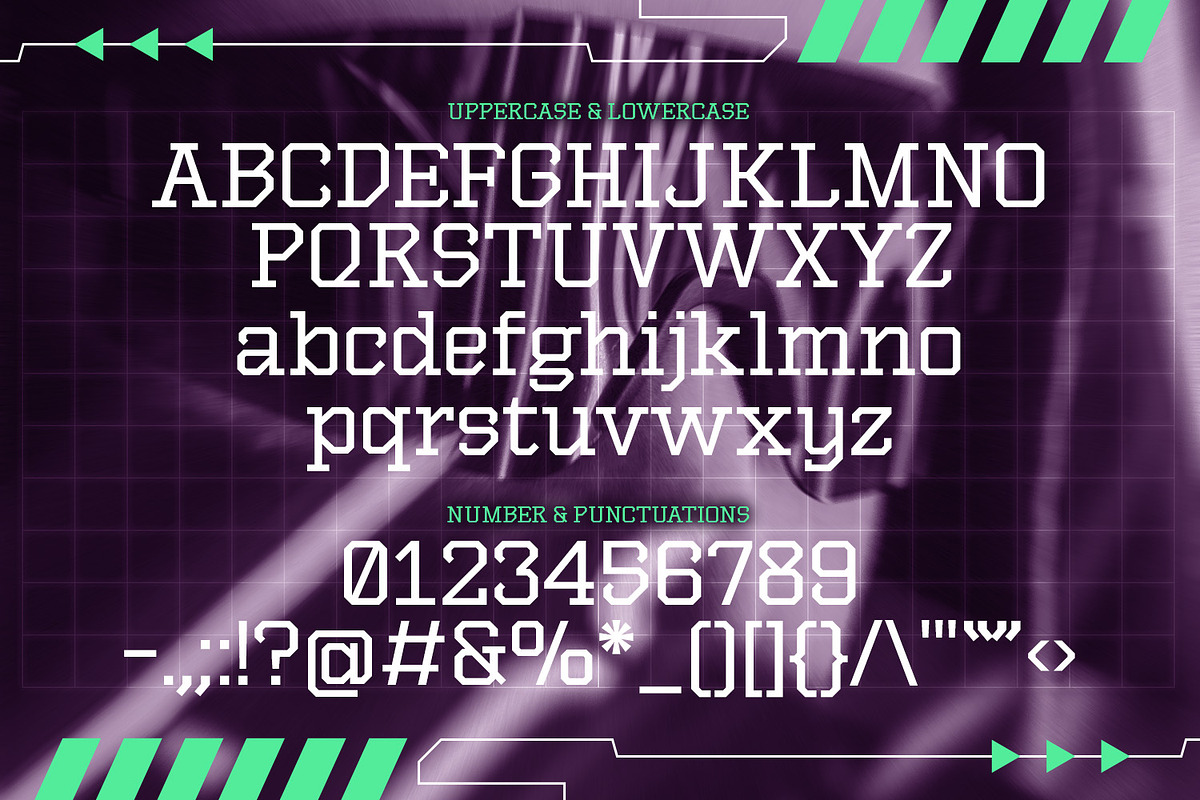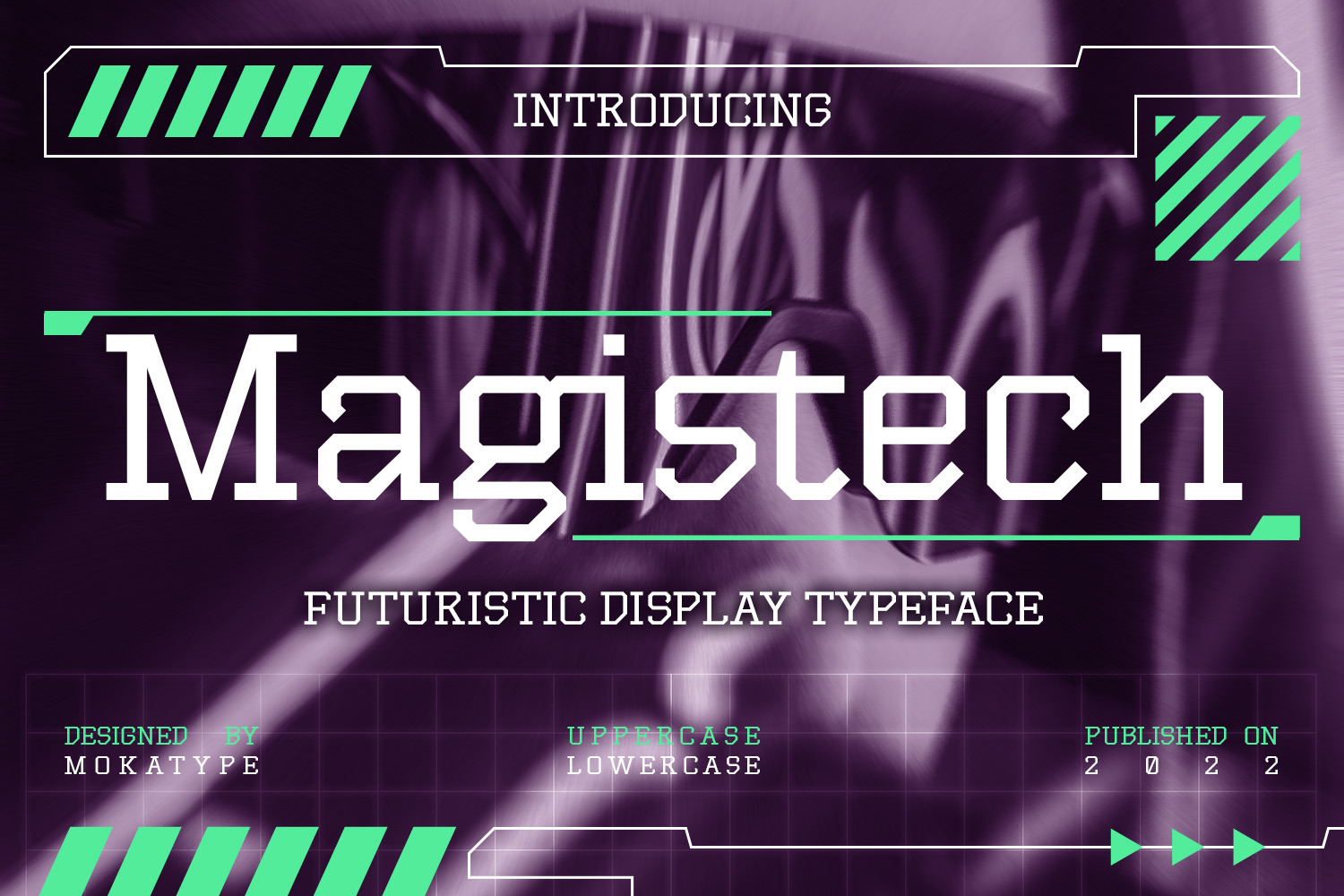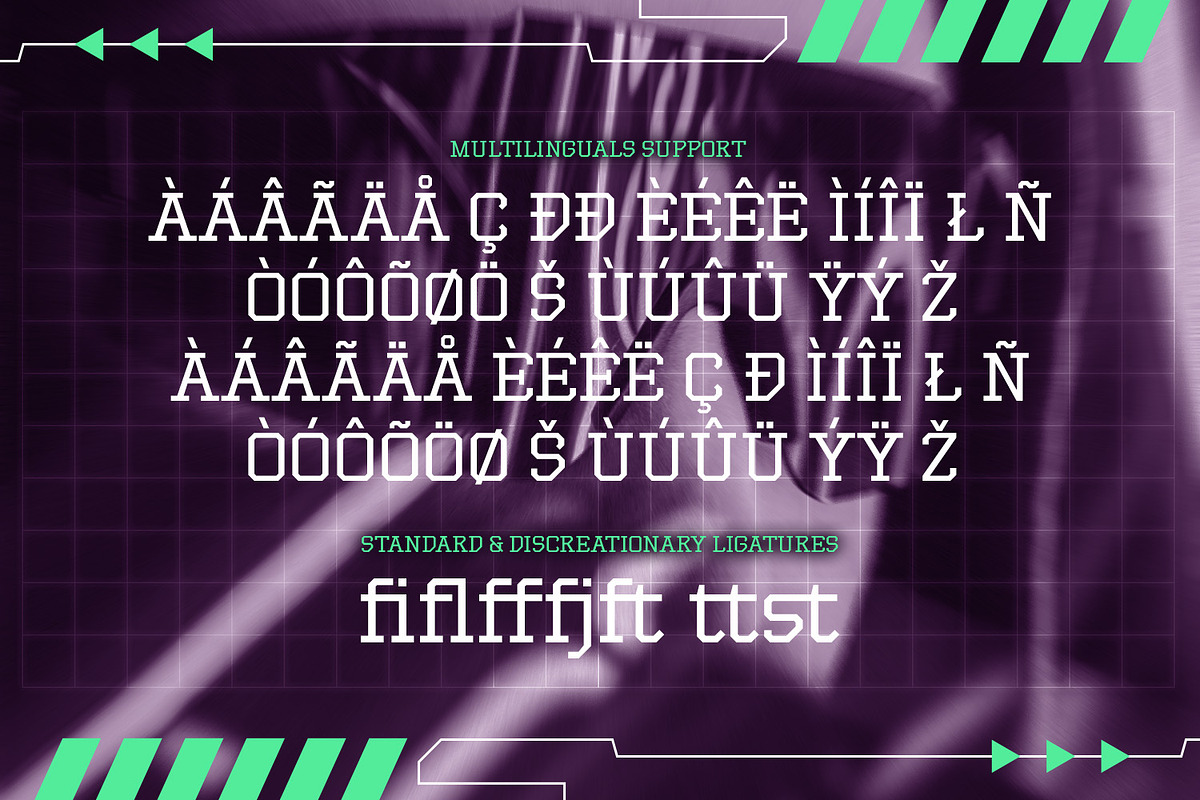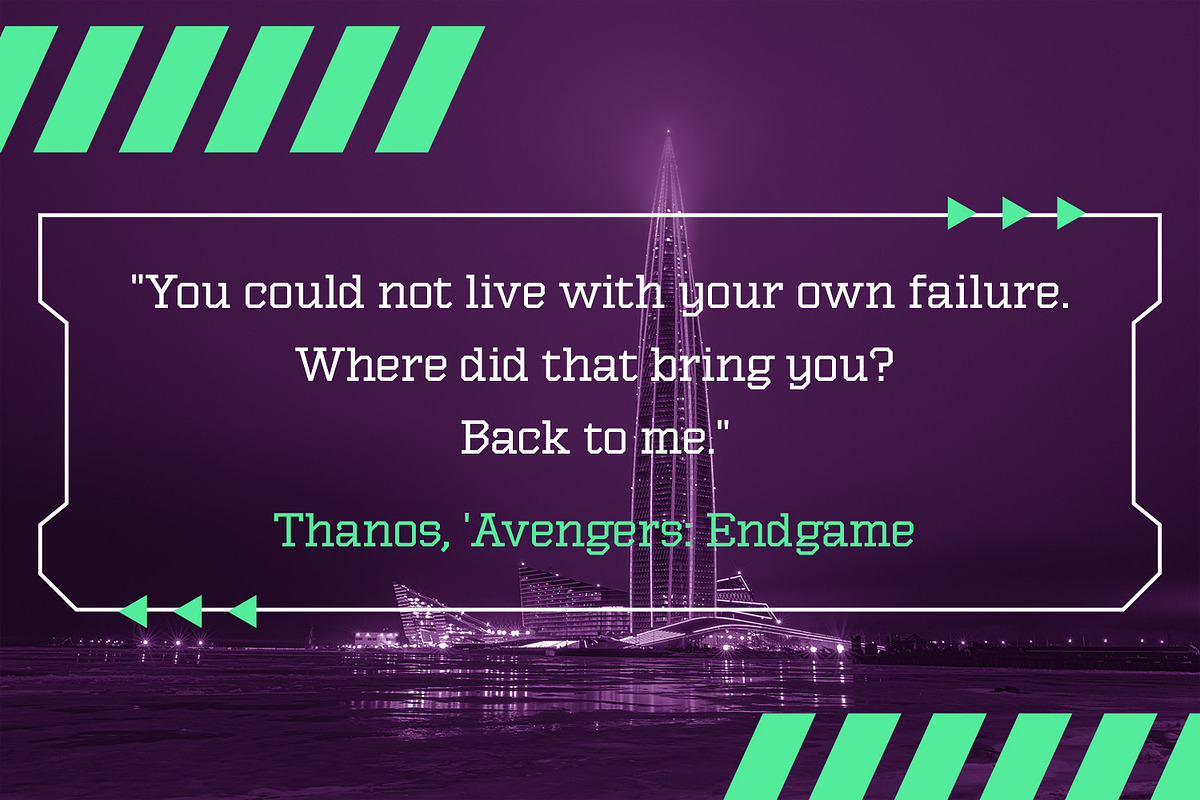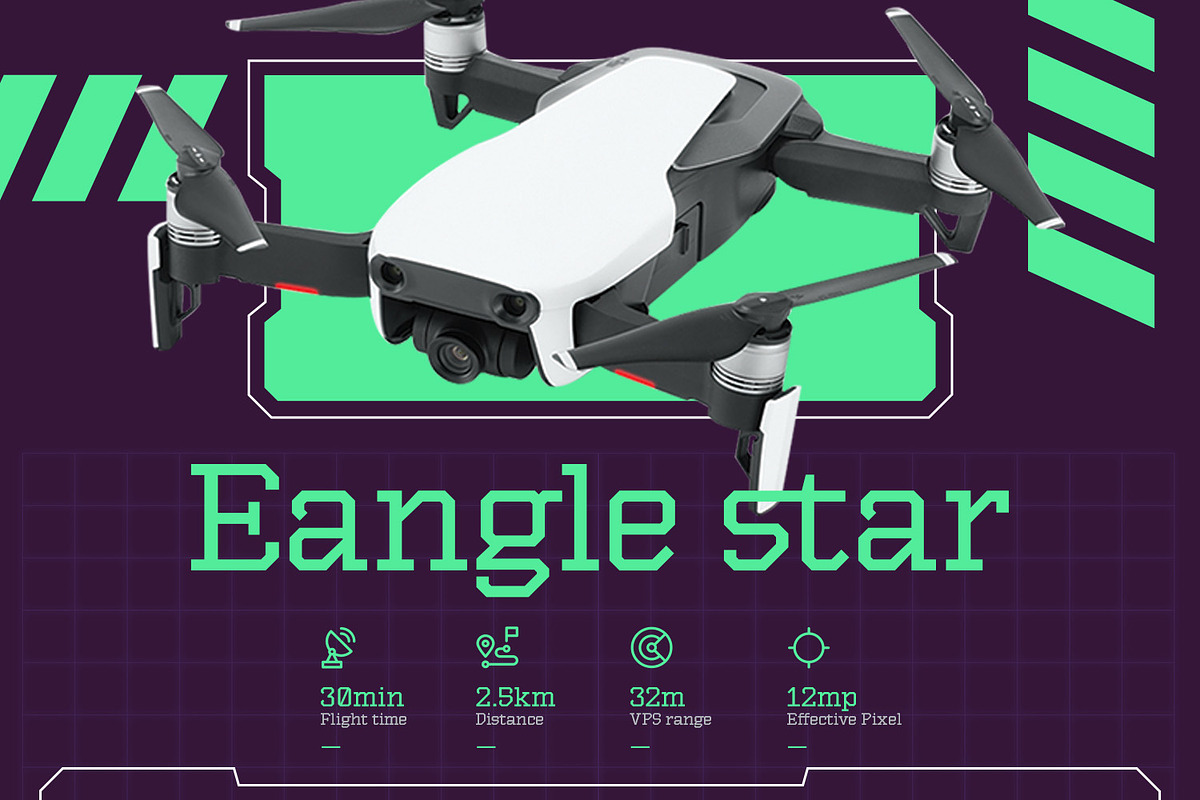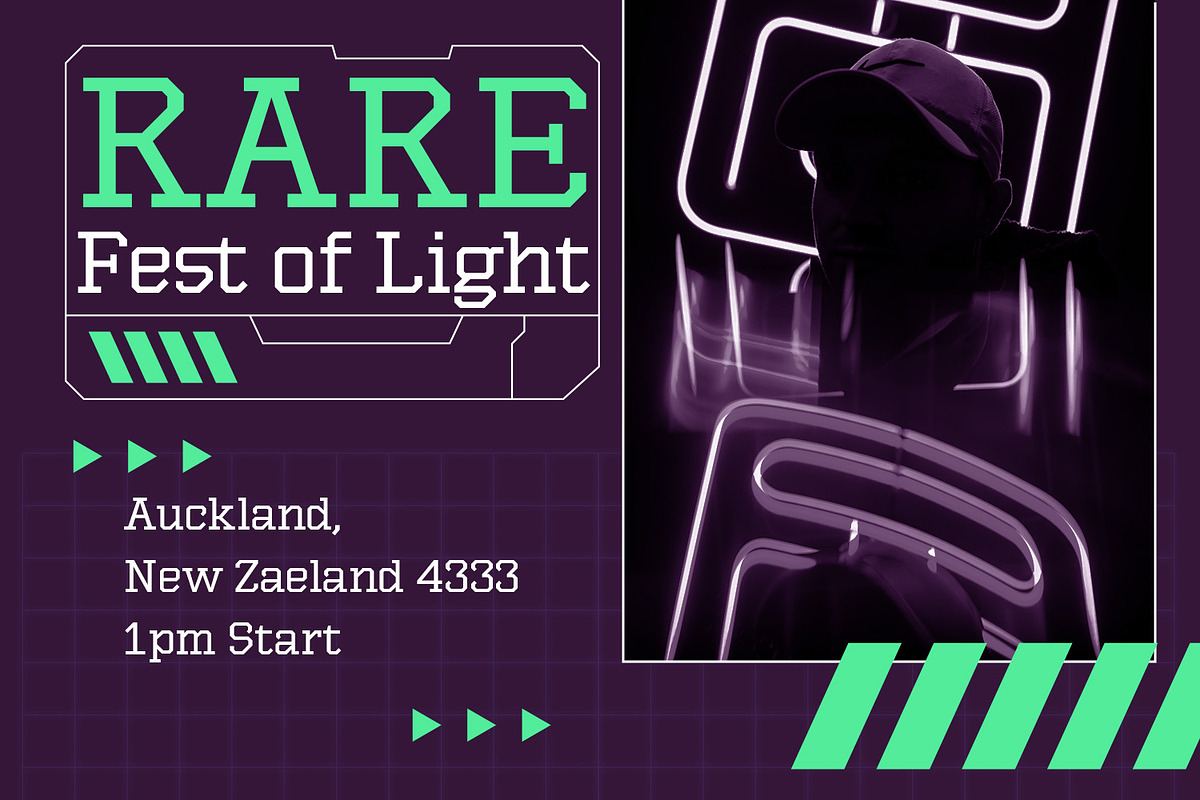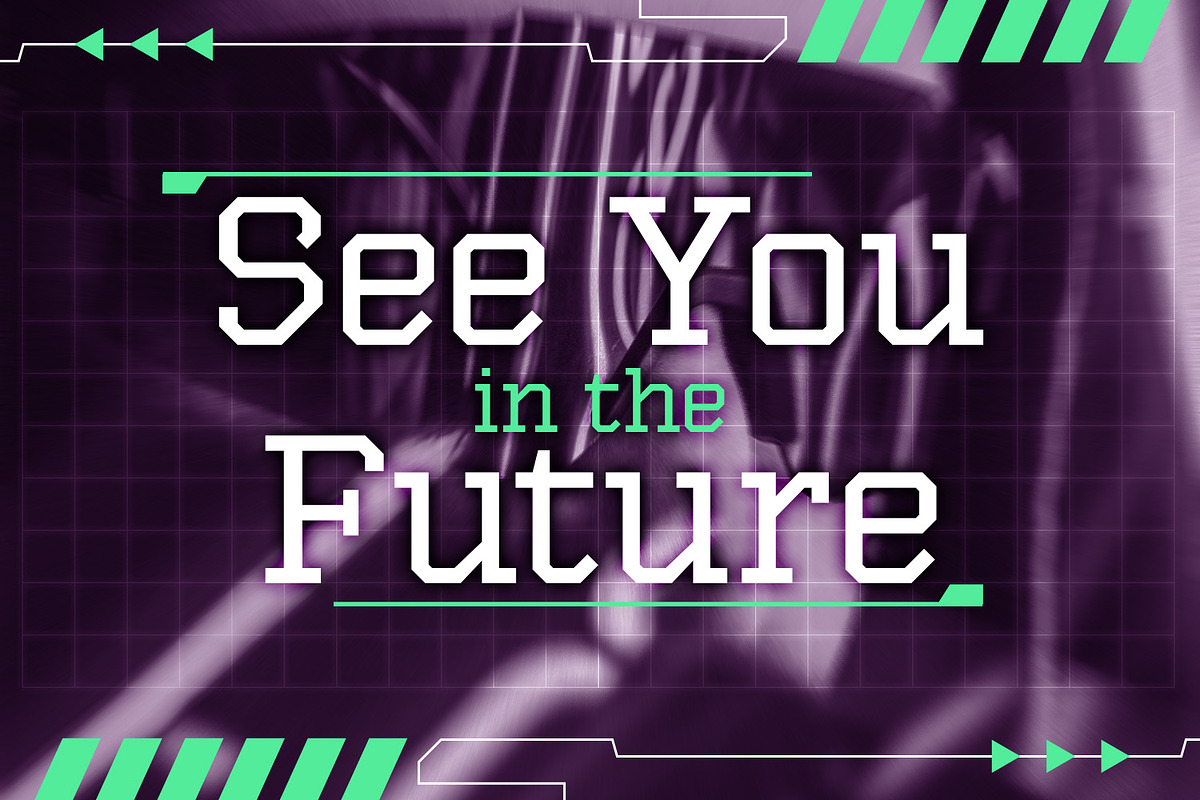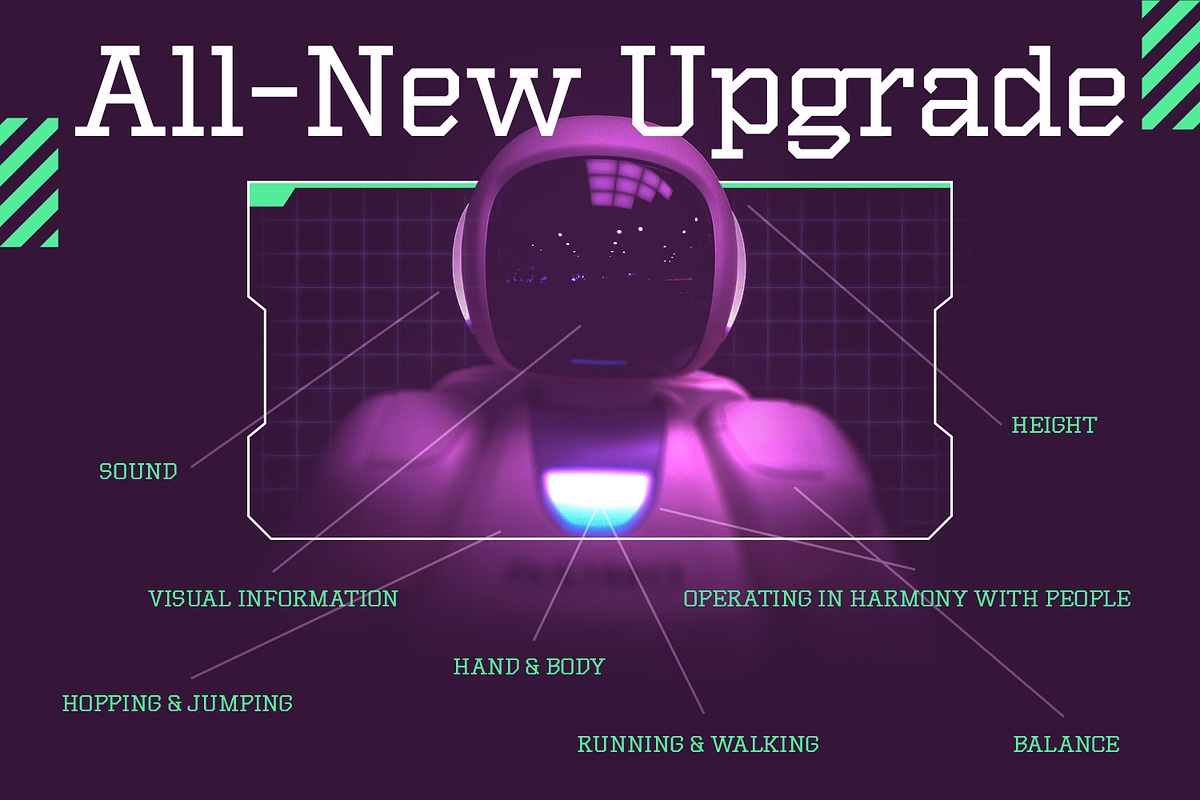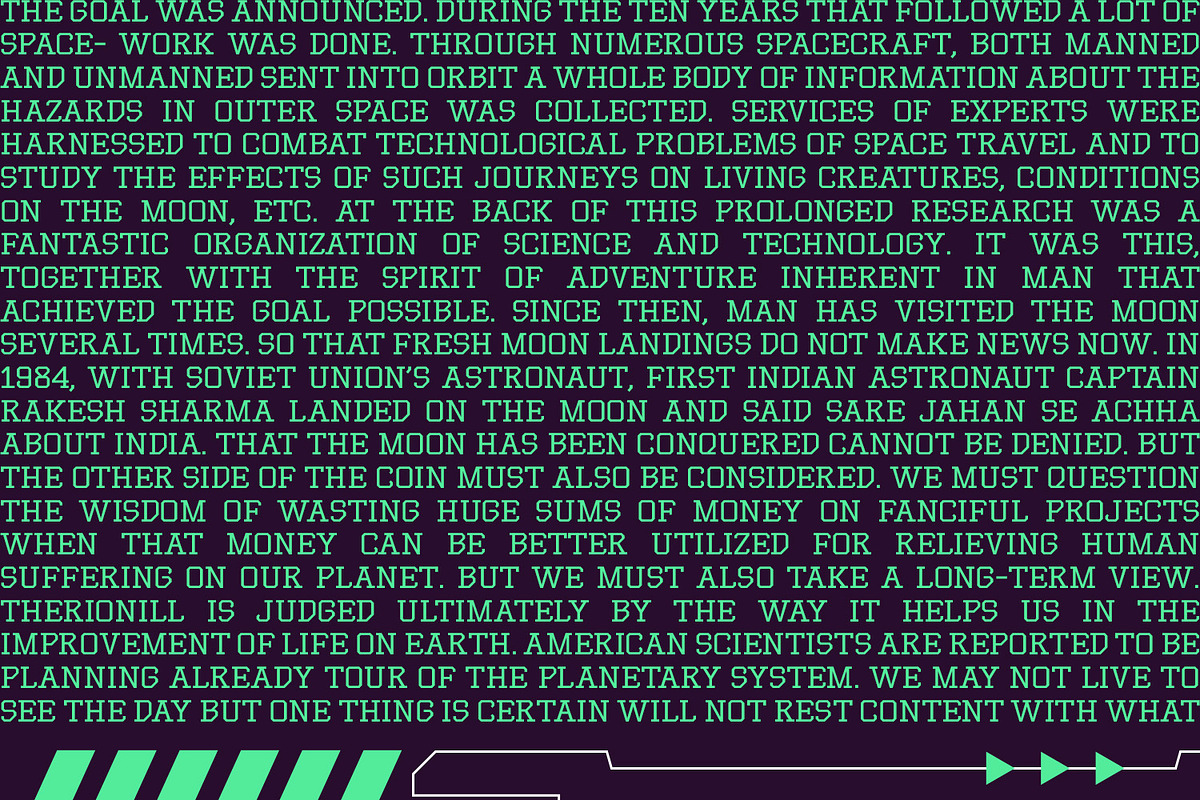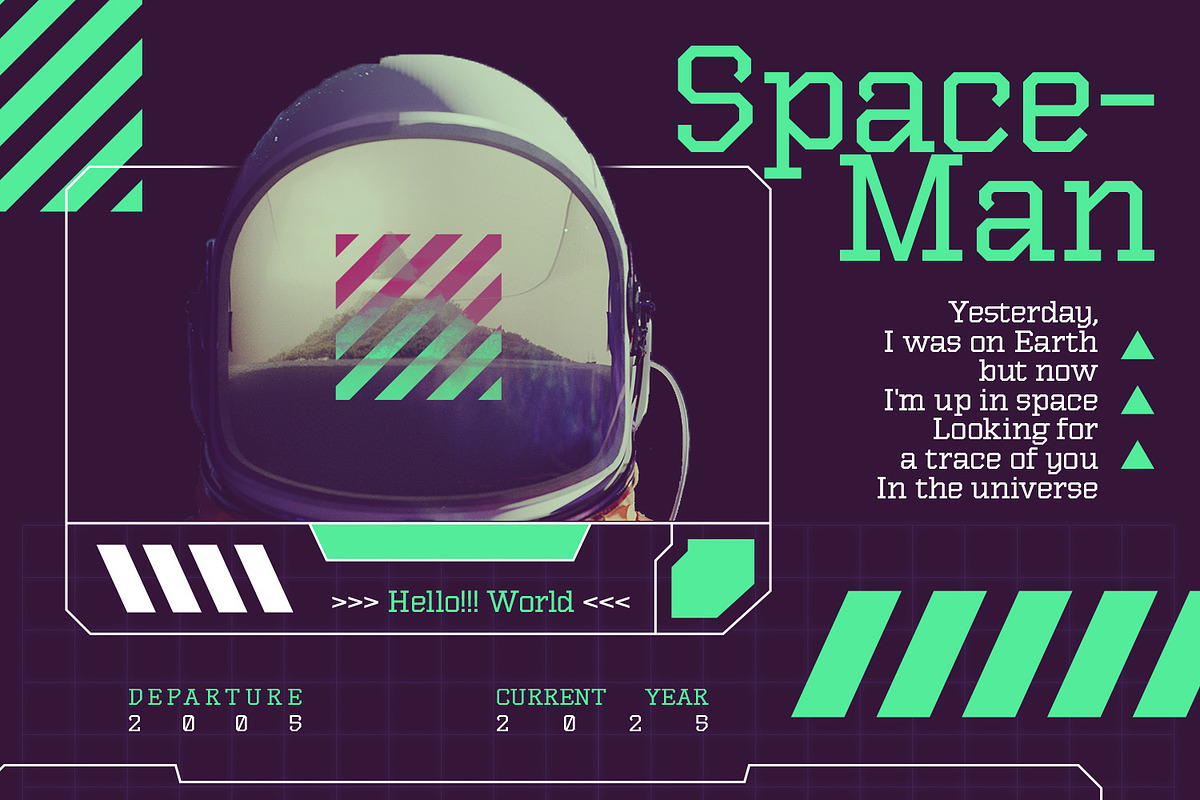
Magistech - Futuristic Font
Magistech is a display font inspired by technology and future design. Designed with modern sensibility build based on slab serif with square letterform, consist in any character either uppercase or lowercase. This font is fit for any design like headline, video, or social media, particularly for future or modern nuances design.
- Ligatures (Opentype features)